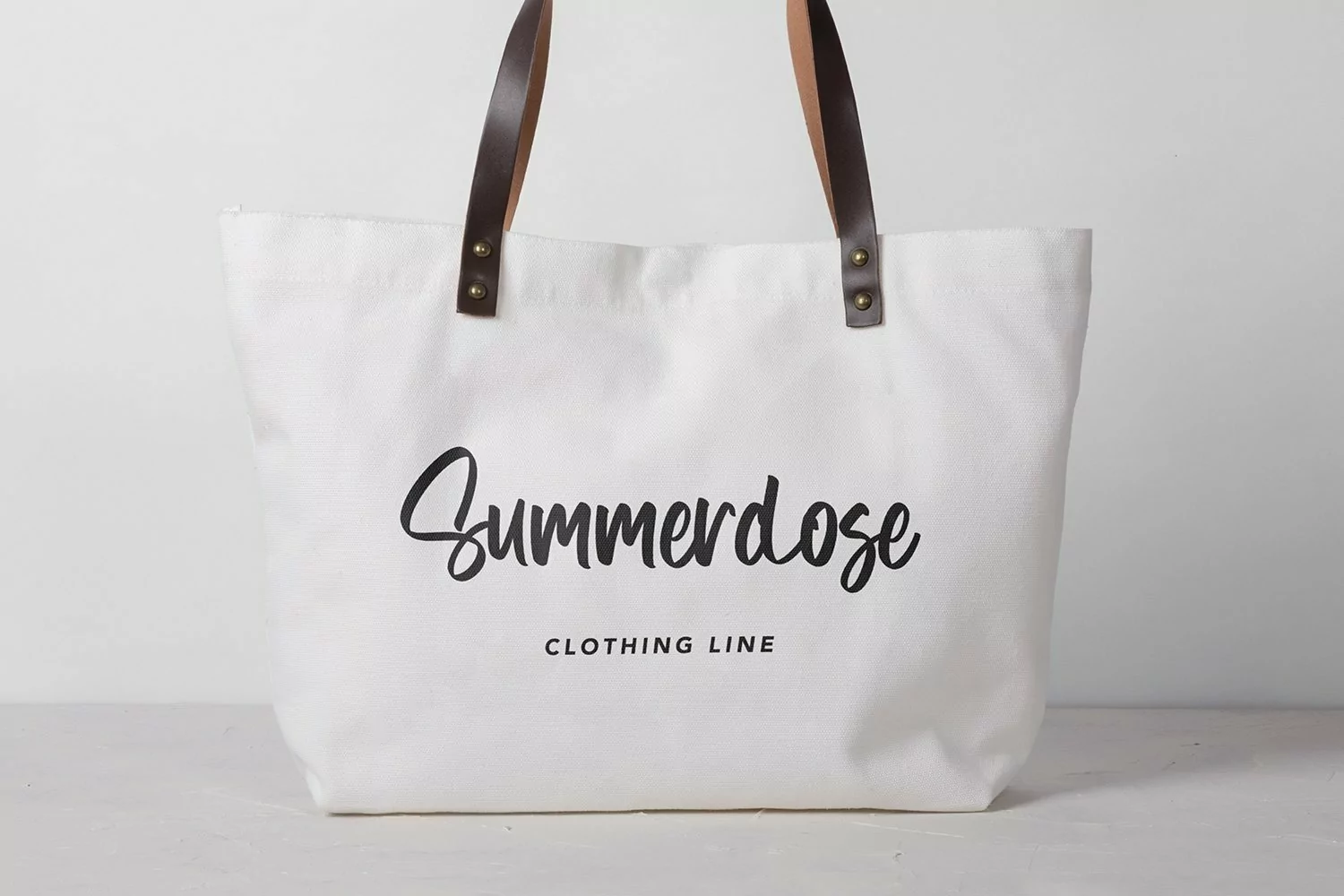
Web Font Nostalgia - Beauty Handletter Font that has a distinctive character that is very thick and elegant to use
Nostalgia is a relaxed and flowing Calligraphy Font. Incredibly versatile, this font fits a wide pool of designs, elevating them to the highest levels. Add this font to your favorite creative ideas and notice how it makes them come alive!